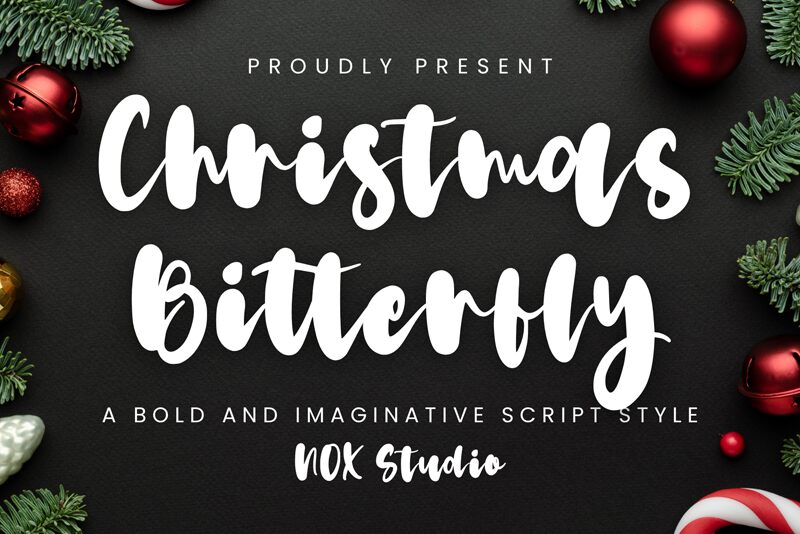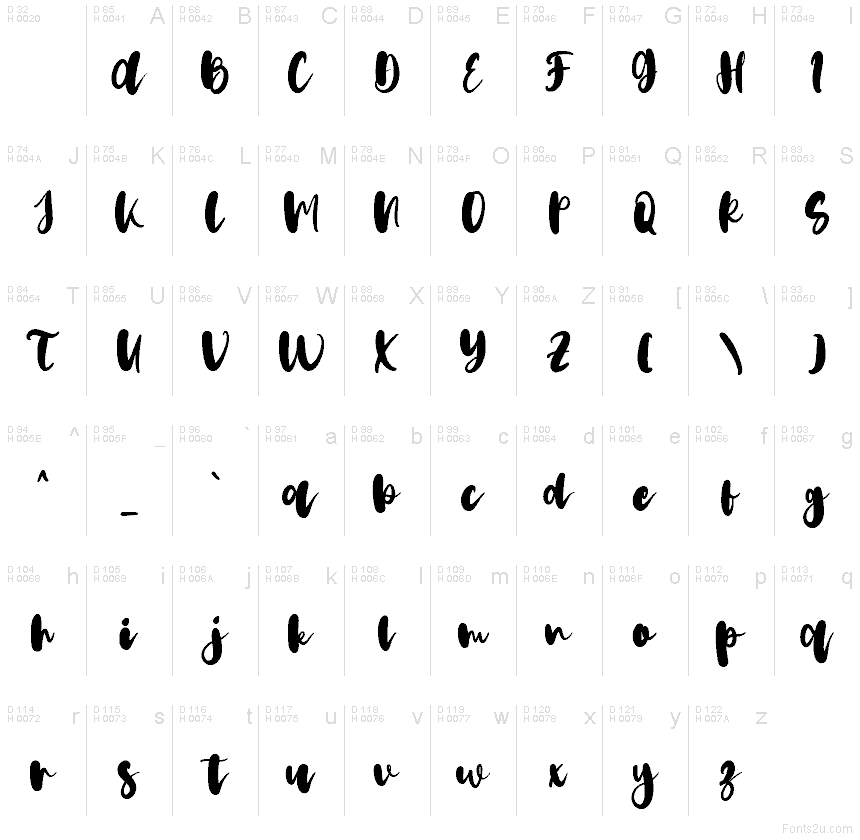
Christmas Bitterfly
Christmas Bitterfly font by Sarif Letter is a free brush script typeface with a cozy, handmade feel that practically smells like fresh pine and cinnamon. Its bold, inky strokes are rounded and playful, with smooth curves that look like they were painted in one confident sweep. The letters tuck close together, creating a warm, bundled-up rhythm that instantly gives layouts a festive, welcoming mood.
Using Christmas Bitterfly, this free font shines on holiday cards, gift tags, seasonal logos, product packaging, Instagram posts, and party invitations where you want charm without fuss. It’s a natural fit for DIY crafts and merch, especially when set large so the lush brush texture can breathe. Pair it with a simple sans serif in small caps for dates, prices, or supporting text to keep your designs clear and balanced.